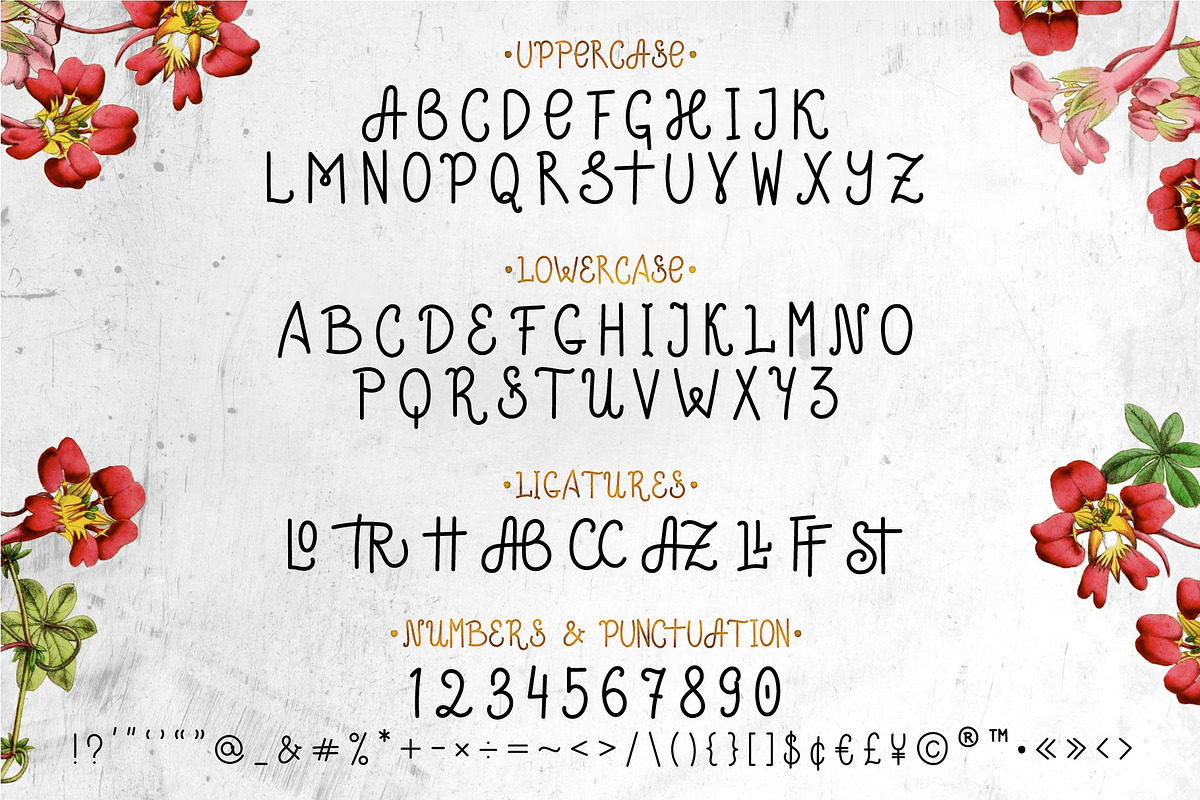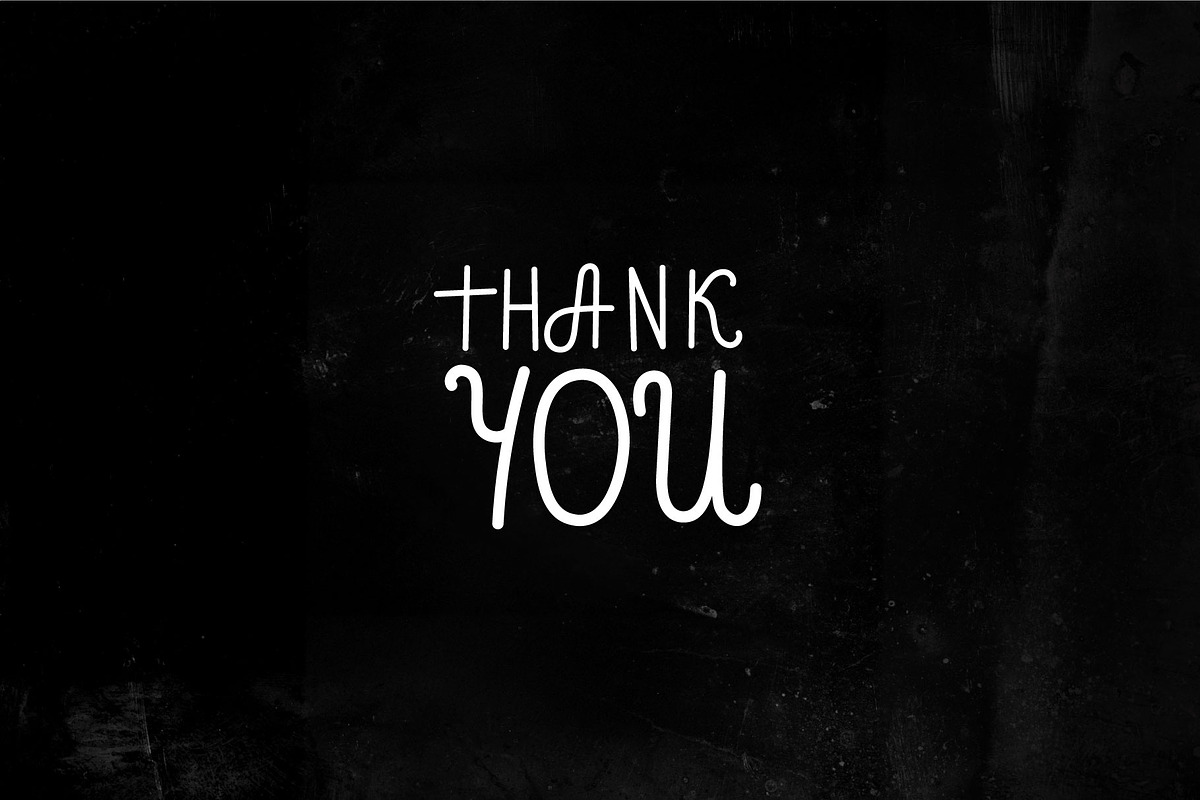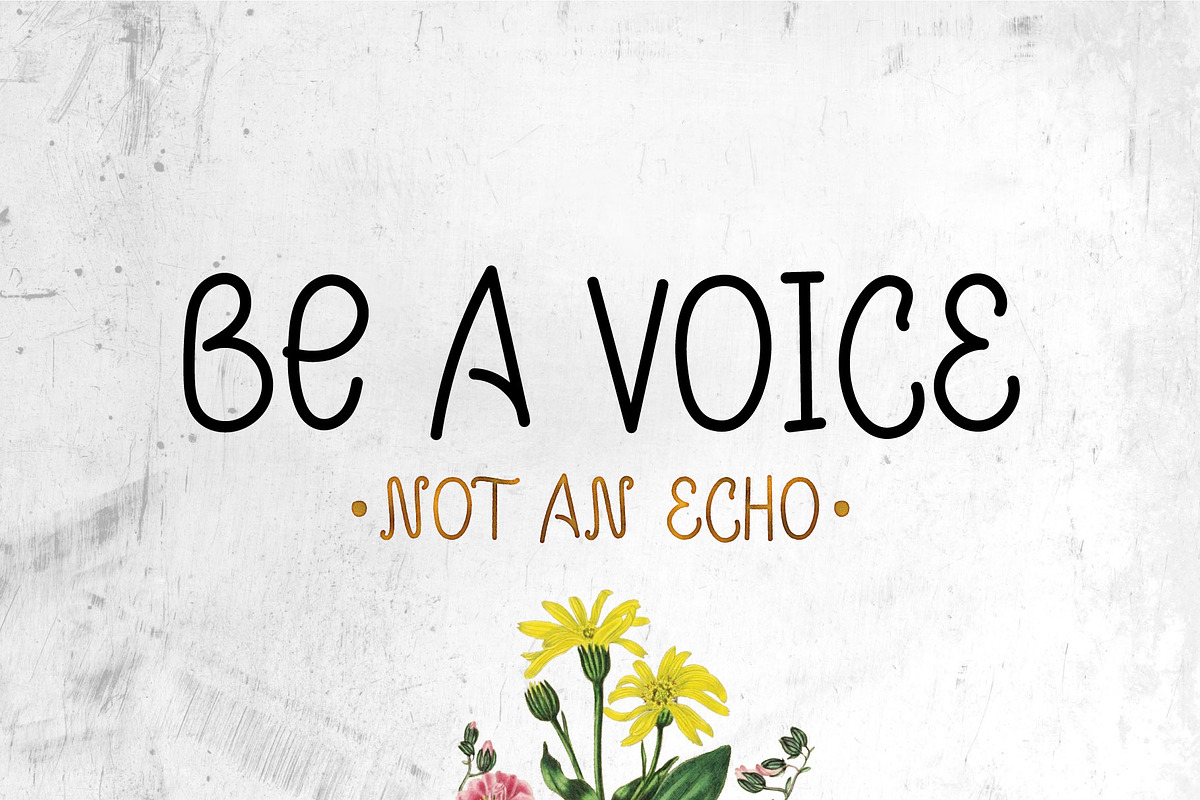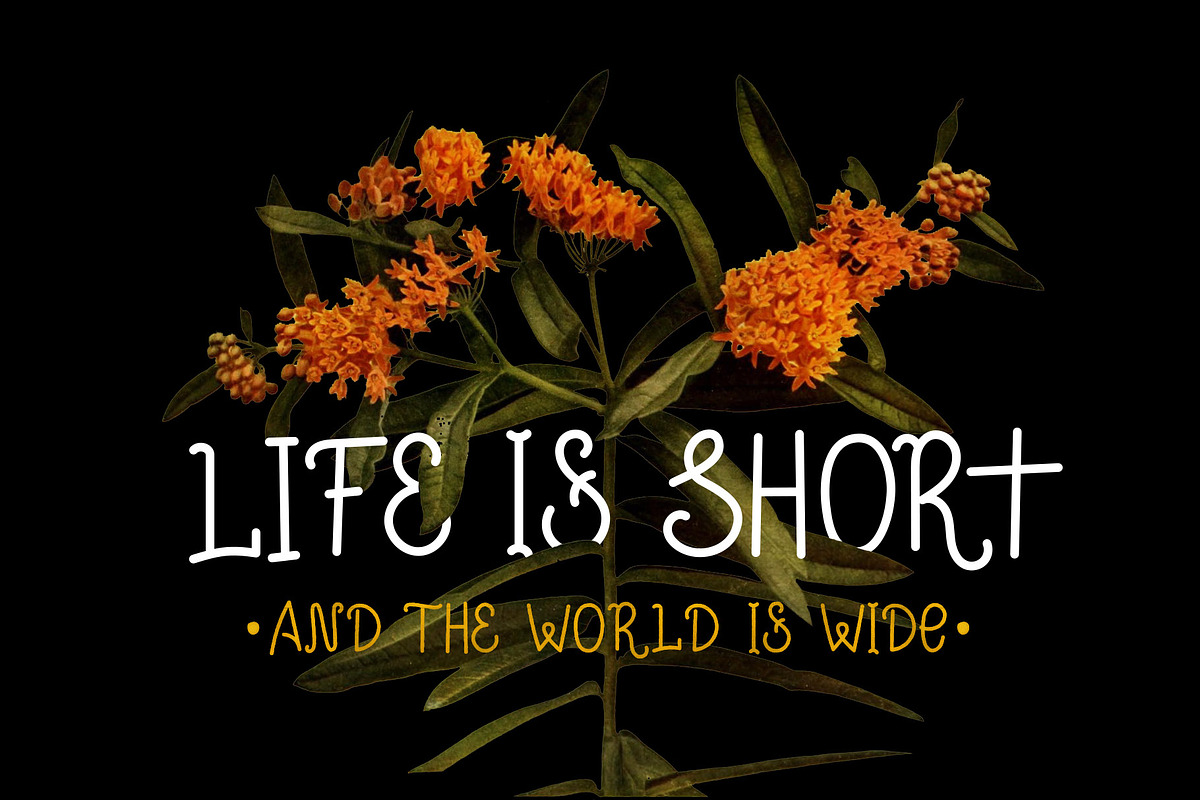
Stay True - cute friendly font
Introducing Stay True
Stay True is a decorative monoline font. This font includes upper and lowercase characters, punctuation and numerals. It is perfect for:
- This font includes upper and lowercase characters, punctuation and numerals.
Why Stay True - cute friendly font is worth a look
Stay True - cute friendly font by doffdog fits naturally into Branding, posters, packaging, typography.